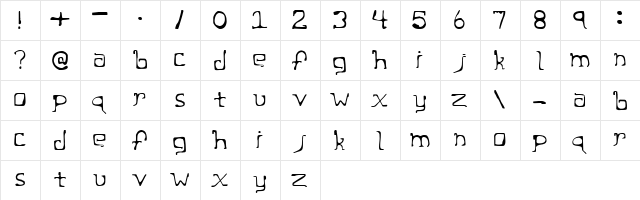
Cage Regular
Design Context for Cage Typeface
Cage takes a measured approach to typography — its balanced proportions and neutral character make it a reliable workhorse for both digital and print work.